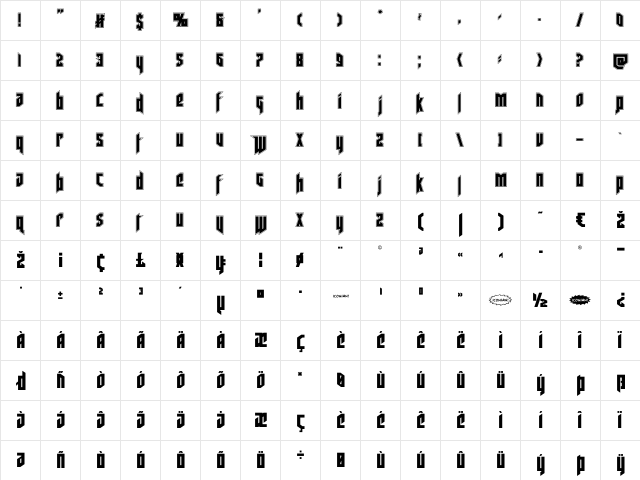
Deathshead Academy Regular
Design Context for Deathshead Academy Typeface
Deathshead Academy leans into the macabre with letterforms designed to disturb and intrigue in equal measure.
Perfect for anything that needs to unsettle — game titles, horror branding, and macabre invitations.
Font Pairing: Pair with a clean neutral sans-serif for body copy to let Deathshead Academy's character lead without overwhelming the composition.
Pro Tip: Use Deathshead Academy at larger display sizes for maximum impact. Consider generous tracking to let the disturbing character of each letterform breathe.